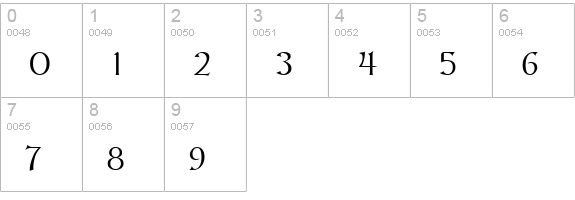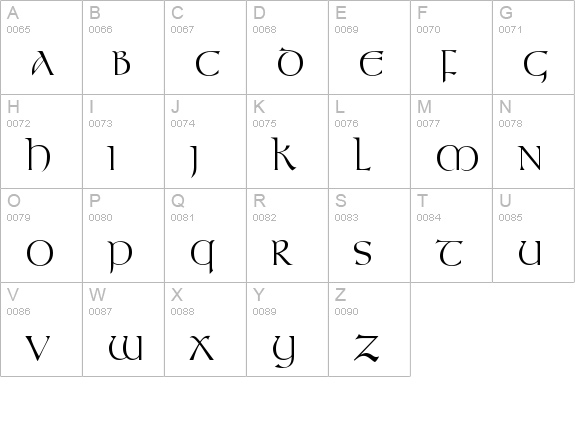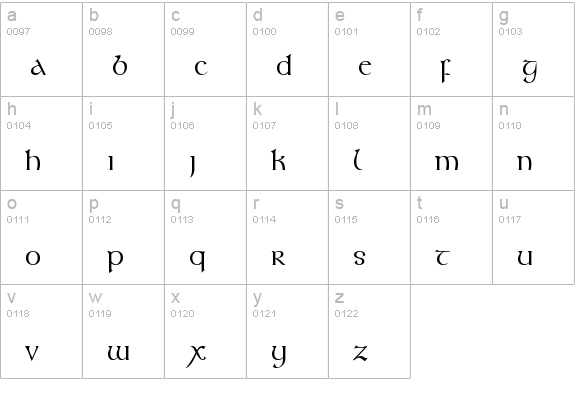
Passion Font Details
Passion font is a beautifully crafted typeface that exudes elegance and sophistication. Its delicate curves and graceful swashes make it perfect for adding a touch of romance to any design project. Whether you're working on wedding invitations, branding materials, or any other creative endeavor, Passion font will surely captivate your audience. And the best part? Passion font is completely free to download at FontsMarket.com! This means you can enjoy the beauty and versatility of this stunning font without any cost. So why wait? Add a touch of passion to your designs today with Passion font.